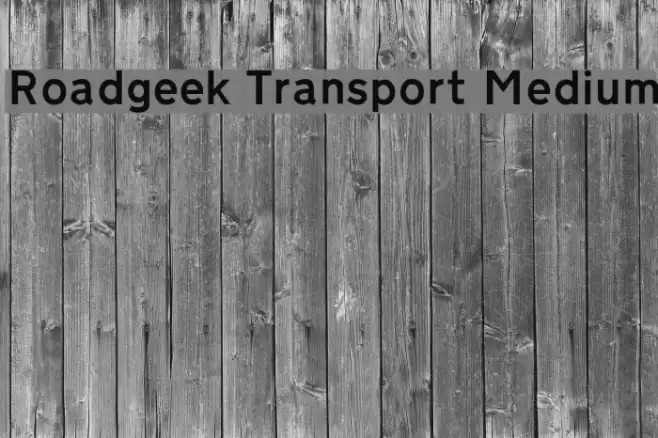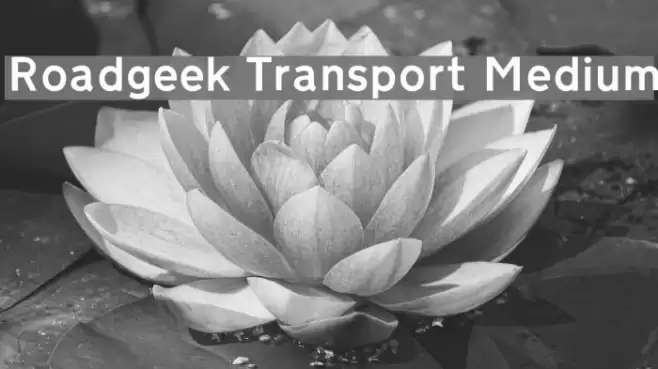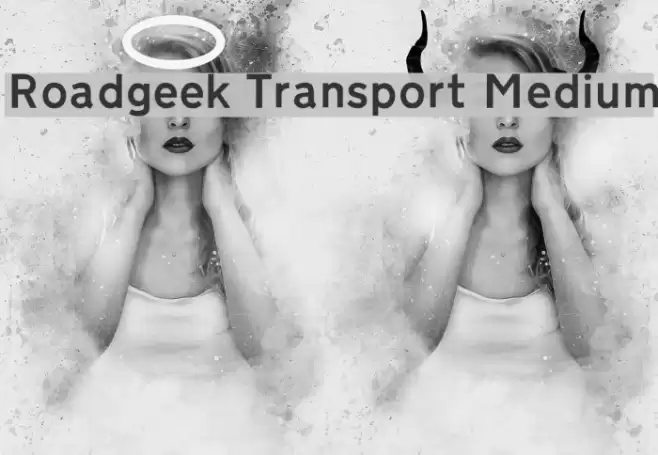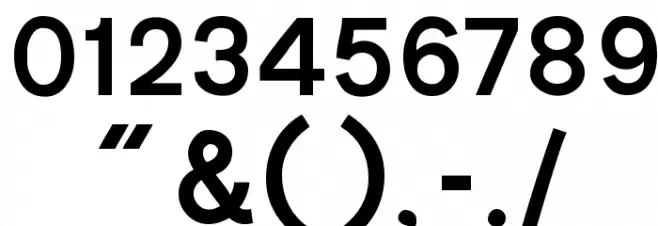
Roadgeek Transport Medium Font
Roadgeek Transport Medium Description
This font presents a clean and modern sans-serif style, characterized by its straightforward and highly legible letterforms. The characters are uniform in width, contributing to a balanced and harmonious appearance. The uppercase and lowercase letters maintain a consistent height ratio, which enhances readability. The numerals are clear and distinct, making them suitable for various applications. The special characters are well-integrated, ensuring a cohesive look across all glyphs. This font's simplicity and clarity make it an excellent choice for signage and transportation-related projects.
A modern, highly legible sans-serif font ideal for signage and clear communication from Uncategorized fonts.
- Proposed Projects: Ideal for road signs, transportation systems, public information displays, and any project requiring high readability.
- Use Case: Signage, Public information, Transportation systems